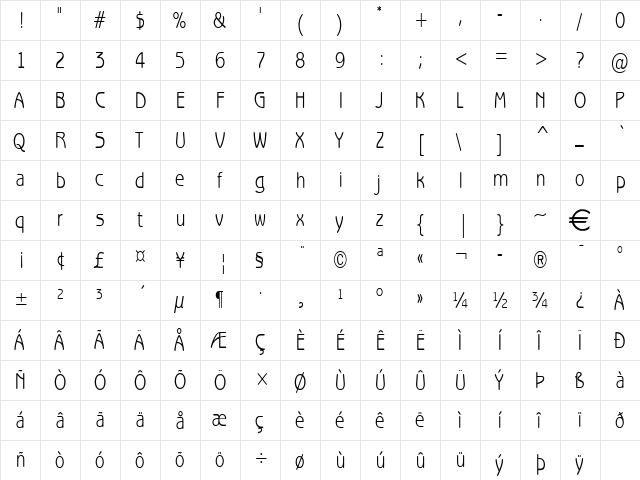
BeagleCondensed Normal
Design Context for BeagleCondensed Typeface
BeagleCondensed offers clean, dependable letterforms without strong stylistic allegiance, making it a practical choice for designers who need flexibility. The condensed width makes it efficient for tight spaces without sacrificing legibility.